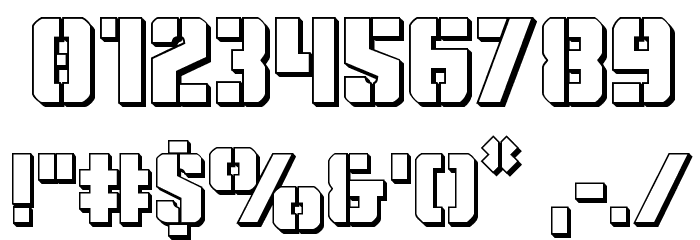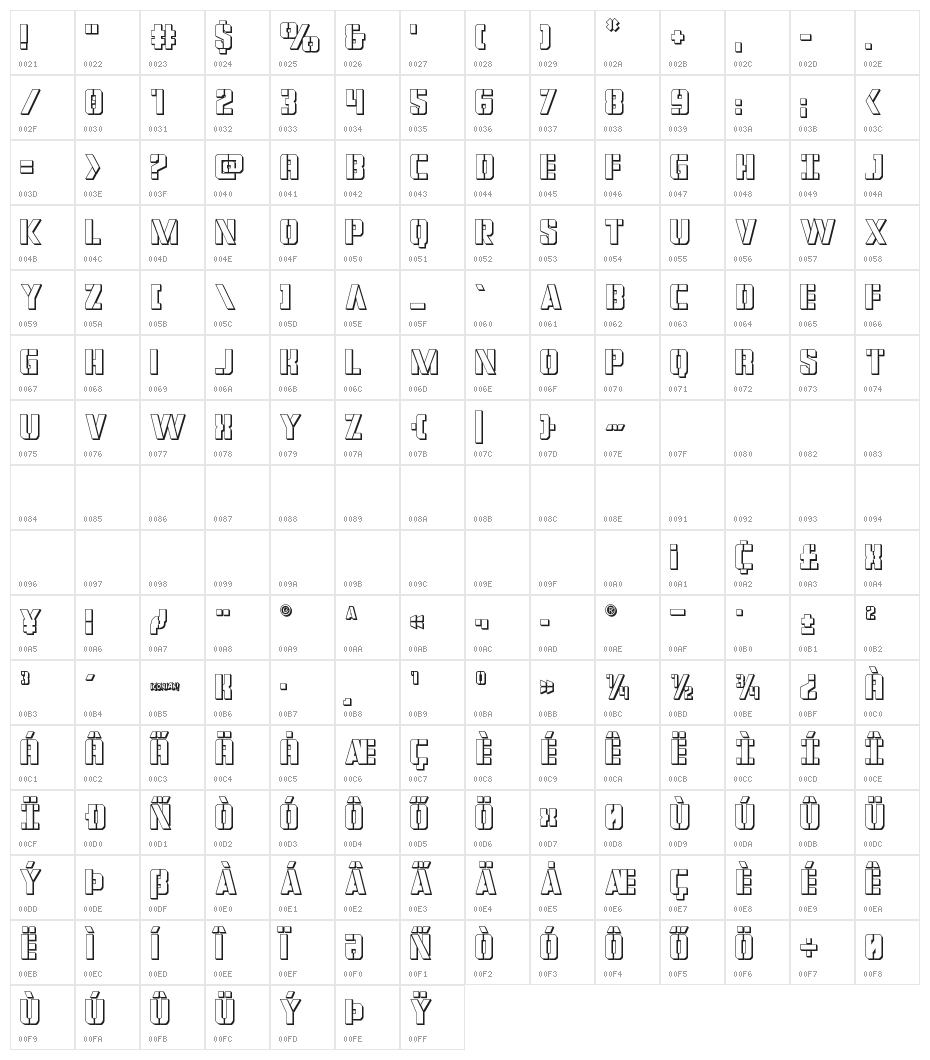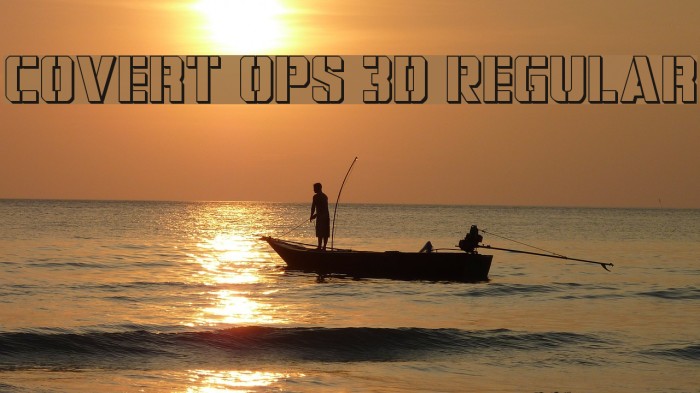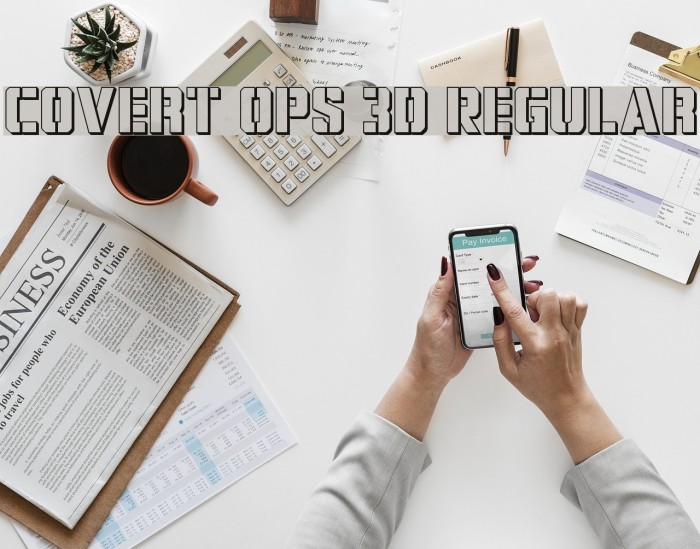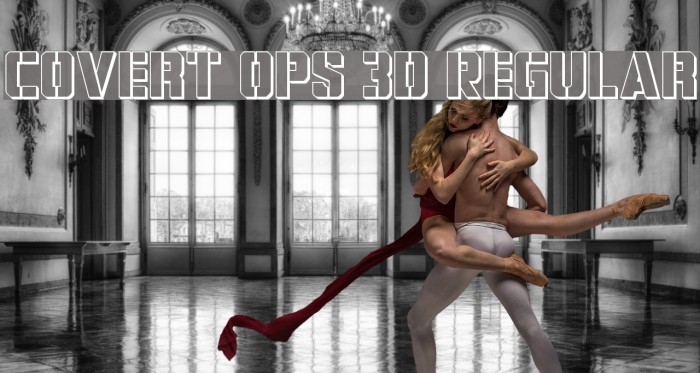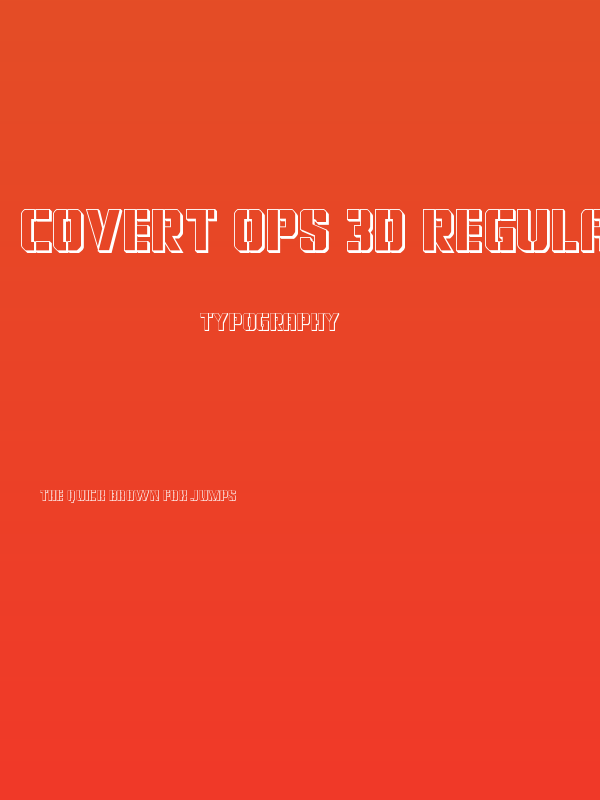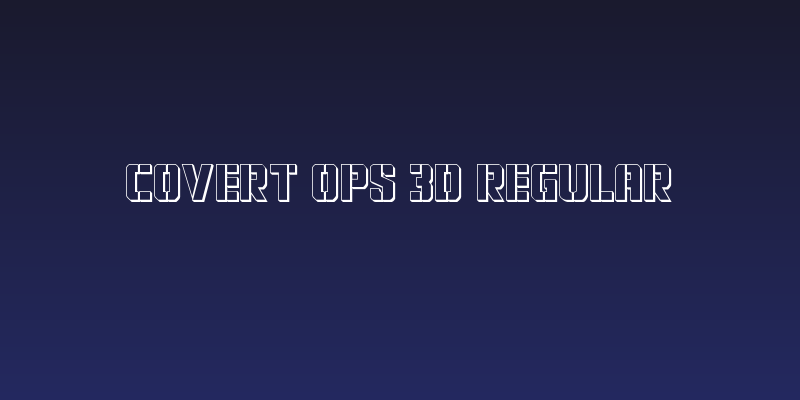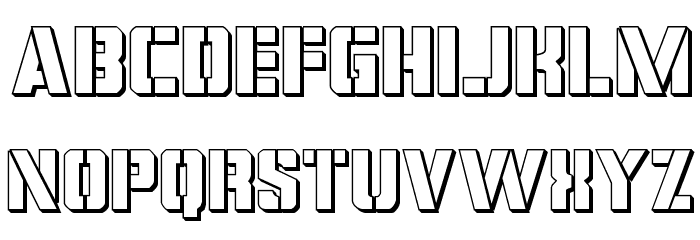
Covert Ops 3D Regular Font
Covert Ops 3D Regular Description
This font features a bold, three-dimensional design with a strong geometric structure. The characters are outlined with a thick border, giving them a striking, impactful appearance. The uppercase letters are consistent in height and width, creating a uniform look. The numbers and special characters maintain the same bold, outlined style, ensuring cohesion across all elements. This font's design is reminiscent of industrial or military aesthetics, making it suitable for projects that require a strong, commanding presence.
| Proposed Projects | Ideal for posters, video game titles, branding for tech or industrial companies, and any project needing a bold, impactful typeface. |